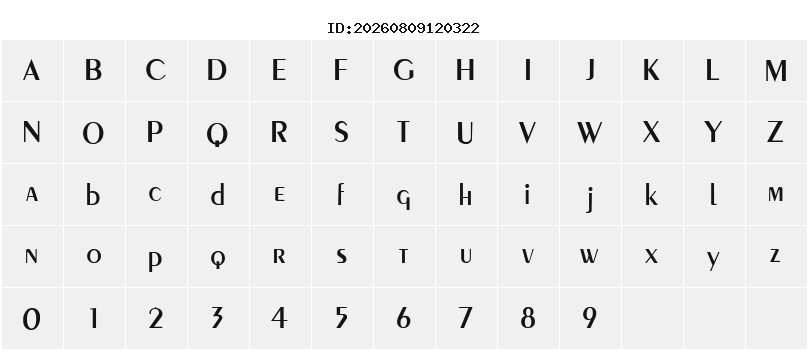
PeigMed Preview
• Font Name: PeigMed
• Font ID: Macromedia Fontographer 4.1 PeigMed Medium
• Full Font Name: PeigMed Medium
• Version: Macromedia Fontographer 4.1 12/20/97
• PostScript Name: PeigMedMedium
• Character Count: 233
About PeigMed.ttf
PeigMed.ttf is a modern, elegant sans-serif font designed for ultimate readability and visual harmony. Perfect for branding, headlines, web design, and print materials.